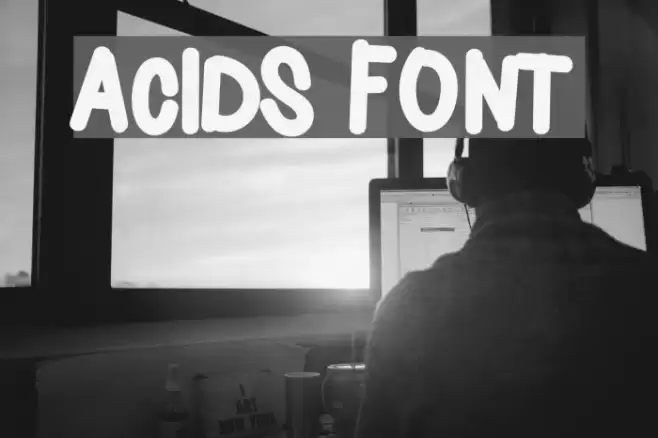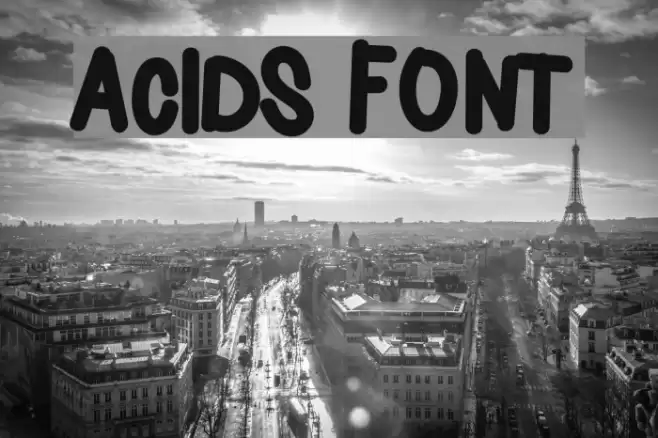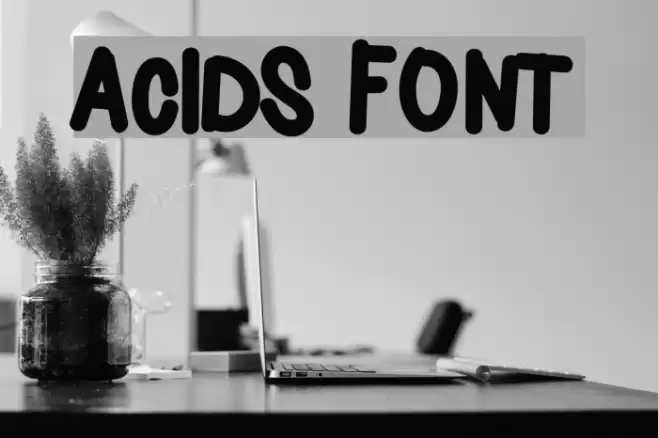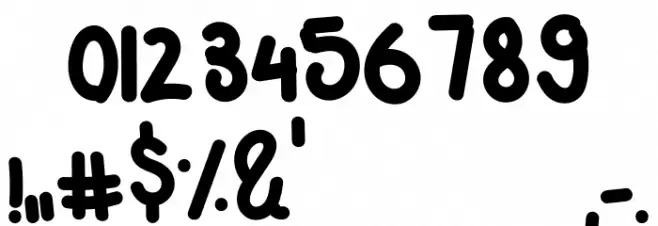
Acids Font
Acids Description
This font features a bold, playful style with rounded edges and a hand-drawn appearance. The characters are thick and uniform, giving a sense of consistency and balance. The uppercase and lowercase letters maintain a cohesive look, with a slightly informal and friendly vibe. The numbers and special characters follow the same design principles, ensuring a harmonious overall look. This font's boldness and rounded shapes make it stand out, while its simplicity ensures readability.
A bold, playful font with rounded edges and a hand-drawn style from Uncategorized fonts.
- Proposed Projects: Ideal for children's books, playful branding, posters, and social media graphics.
- Overall Style: Playful